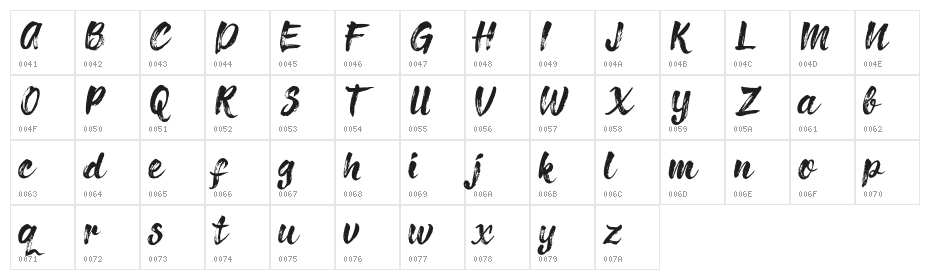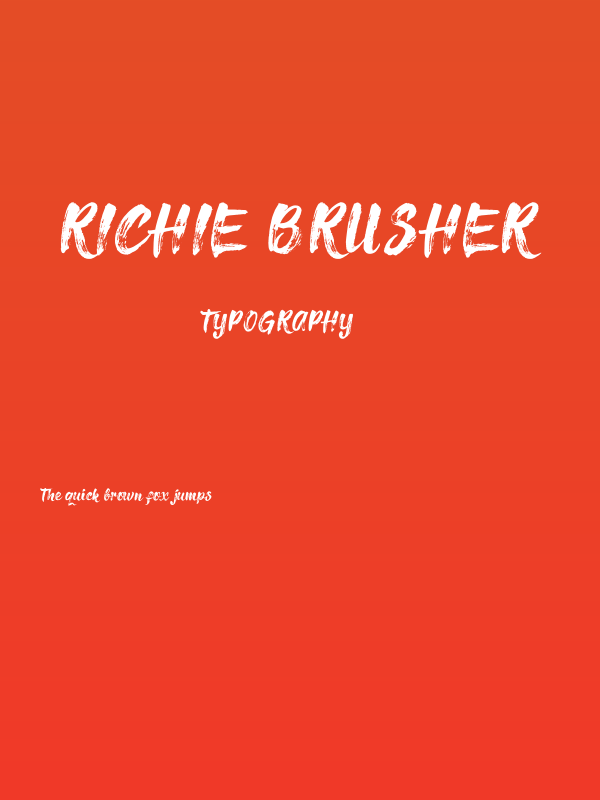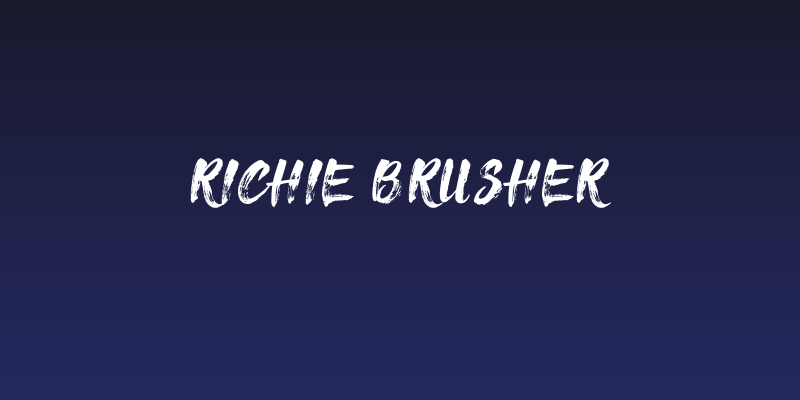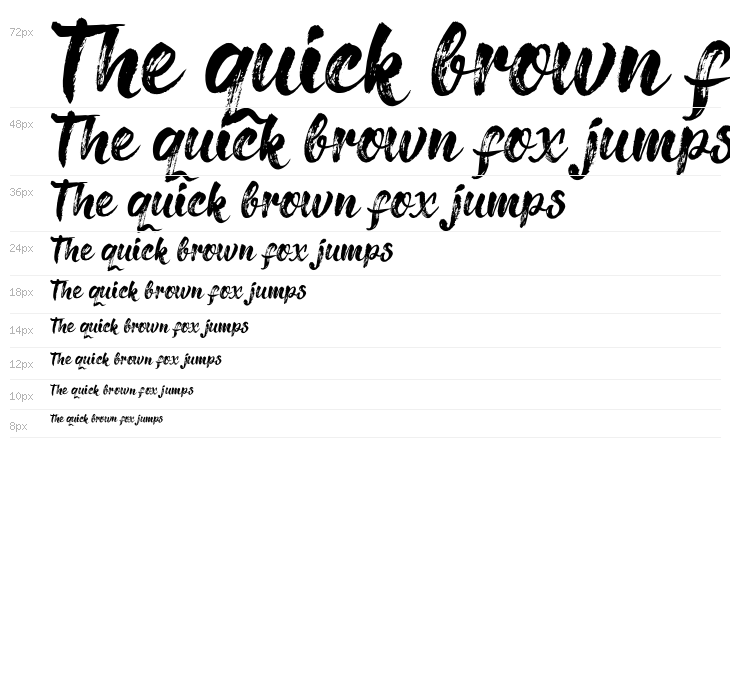
Richie Brusher Font
Richie Brusher Description
This font features a dynamic and energetic brush script style, characterized by its bold, sweeping strokes and textured appearance. The letters have a hand-painted look, with varying thicknesses that create a sense of movement and fluidity. The uppercase and lowercase characters maintain a consistent style, with slight variations that add to the handcrafted feel. The overall design is expressive and artistic, making it ideal for projects that require a personal touch. The font's unique texture and bold presence make it stand out, while still being legible and versatile.
| Proposed Projects | Ideal for branding, packaging, posters, and invitations where a personal, artistic touch is desired. |